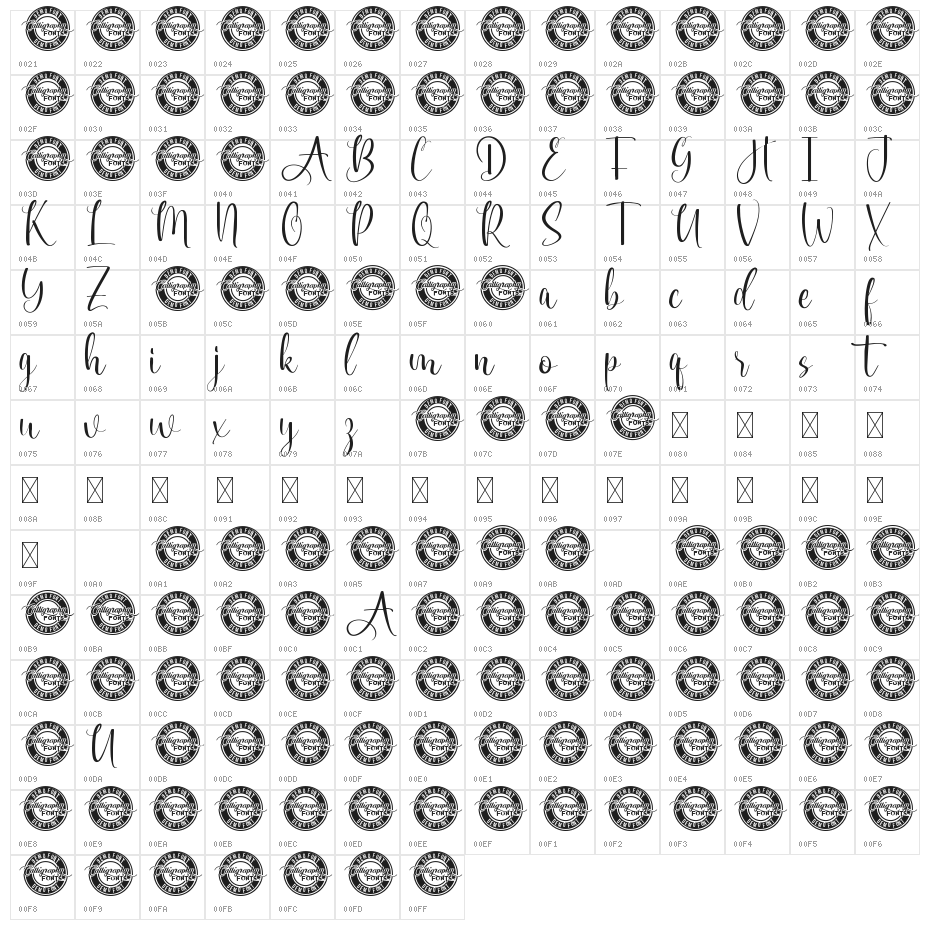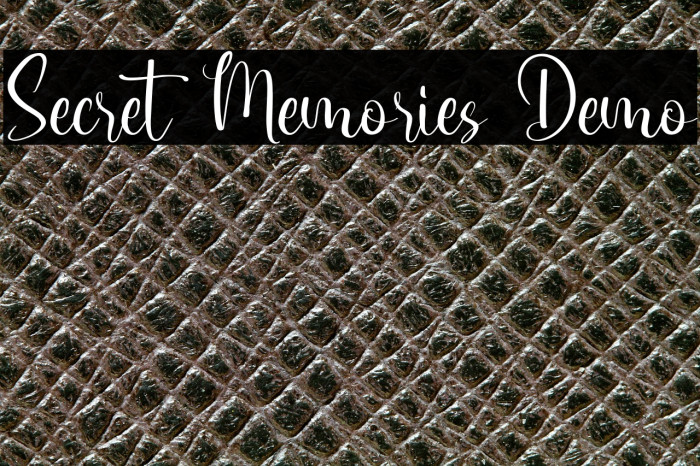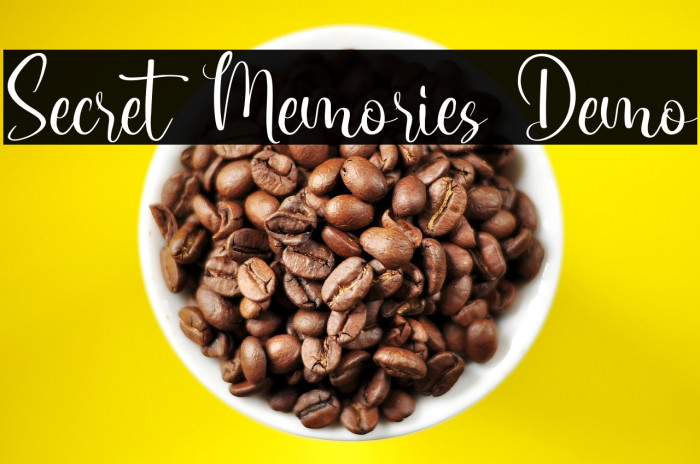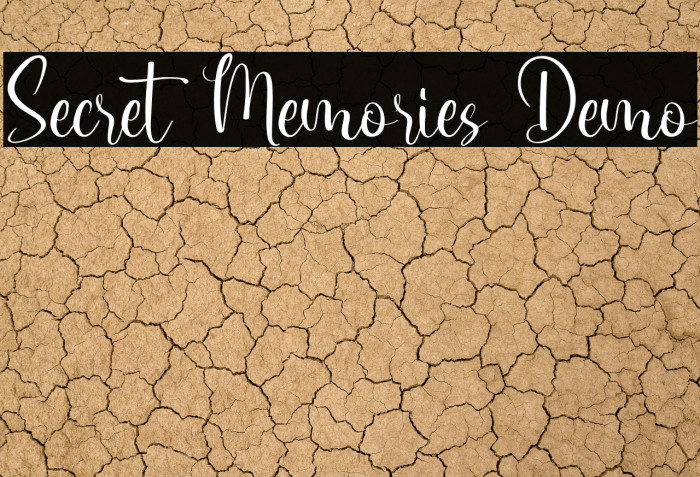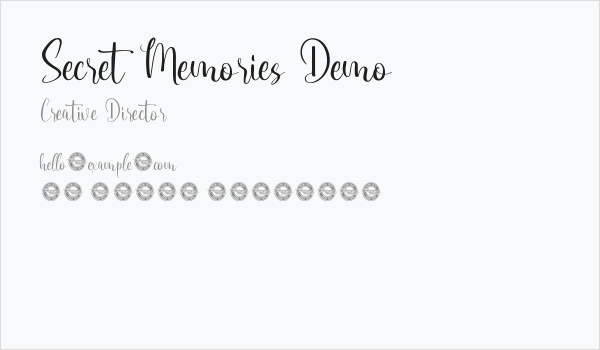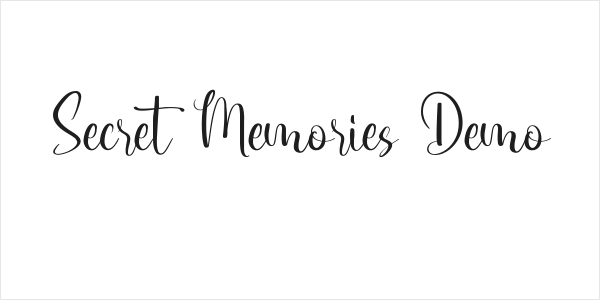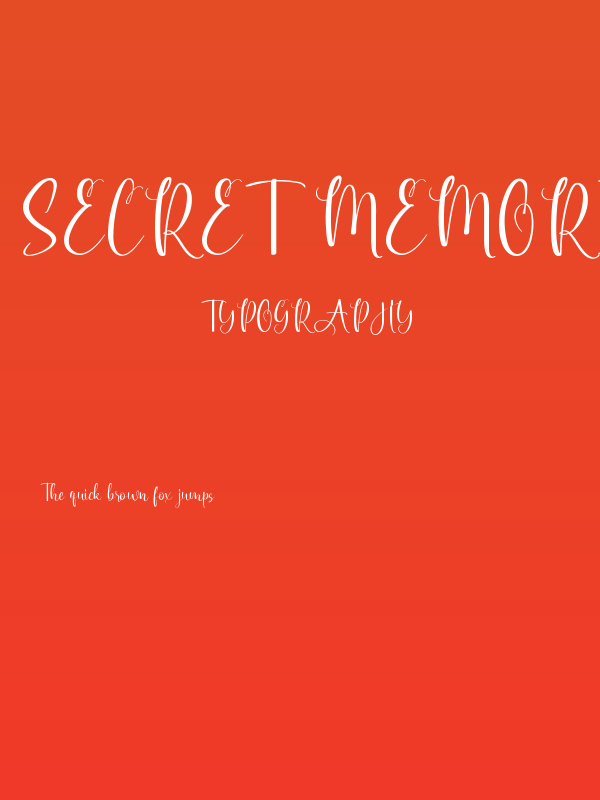
Secret Memories Demo Font
Secret Memories Demo Description
This font features an elegant and flowing script style, characterized by its smooth, cursive strokes and delicate loops. The uppercase letters are distinct with their tall, graceful forms, while the lowercase letters maintain a consistent fluidity, enhancing the overall aesthetic. The font exudes a sense of sophistication and charm, making it ideal for projects that require a touch of elegance. The numerals and special characters are designed to complement the letterforms, ensuring a cohesive appearance across all text elements.